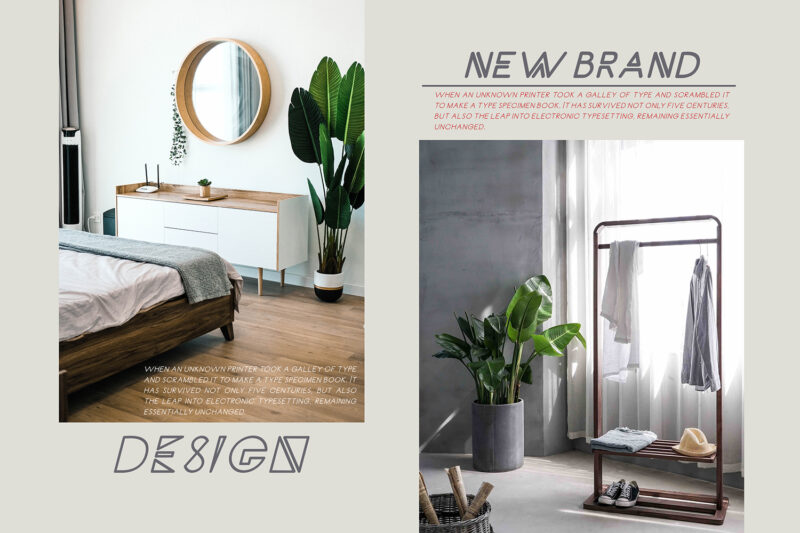
Carrinady – Sans Family
Hello, I’m really excited to introduce Carrinady logotype is a modern typeface font style. suitable to create any branding, product packaging, invitation, quotes, t-shirt, label, poster, logo etc.